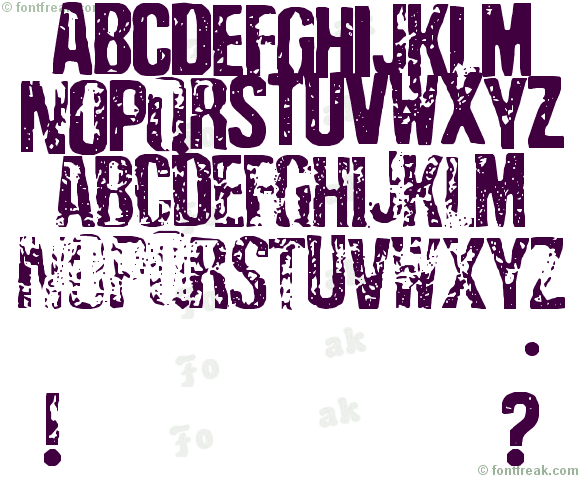
Depressionist Three
Depressionist Three by Mr. Fisk is a striking display font that falls within the decorative category. This typeface features a unique, rugged aesthetic that captures attention, making it a standout choice for various creative projects. The font exhibits a bold stroke weight with a distressed texture that adds a sense of character and depth, while the uneven spacing between characters enhances its raw, expressive quality. This distinctive style is perfect for conveying a sense of authenticity and emotional resonance.
The Depressionist Three font is versatile in its application, making it an excellent choice for a range of design projects. It is particularly well-suited for movie posters, where its dramatic flair can evoke strong emotions and intrigue. Additionally, it can be effectively utilized in album covers, giving music projects a gritty, artistic edge. Small business owners might find it ideal for branding materials, such as café menus or boutique signage, as it draws attention and invites curiosity. It can also serve as an impactful choice for art exhibitions and galleries, where it can reflect the creativity of the showcased works.
What sets the Depressionist Three font apart is its ability to blend artistic flair with functionality. Its bold presence and unique texture not only capture attention but also convey a sense of authenticity that resonates with viewers. For those seeking a distinctive typeface for their projects, a Depressionist Three font free download presents an exciting opportunity to harness its artistic potential.